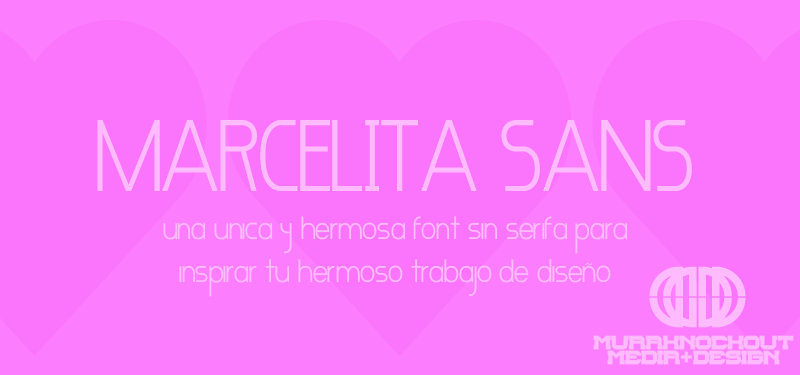
Preview and download Marcelita Sans Font. Created by MuraKnockout Media + Design in Basic Sans serif styles with 100% Free license.
Check out my new Font Blog to stay up to see when I release new fonts! http://murafonts.blogspot.com/ ----------------------- A font inspired by my lovely wife and the signage that I see living in Central America. This font is intended for simple logo type or ad copy. This font includes spanish characters. This is free to do with whatever you wish, personal or commercial. Just don't claim ownership, sell it, redistribute it, or be a jerk with it. It might be cool if you use the font to either credit MuraKnockout Media or Michael Muranaka, or show me how you used it! Enjoy! |